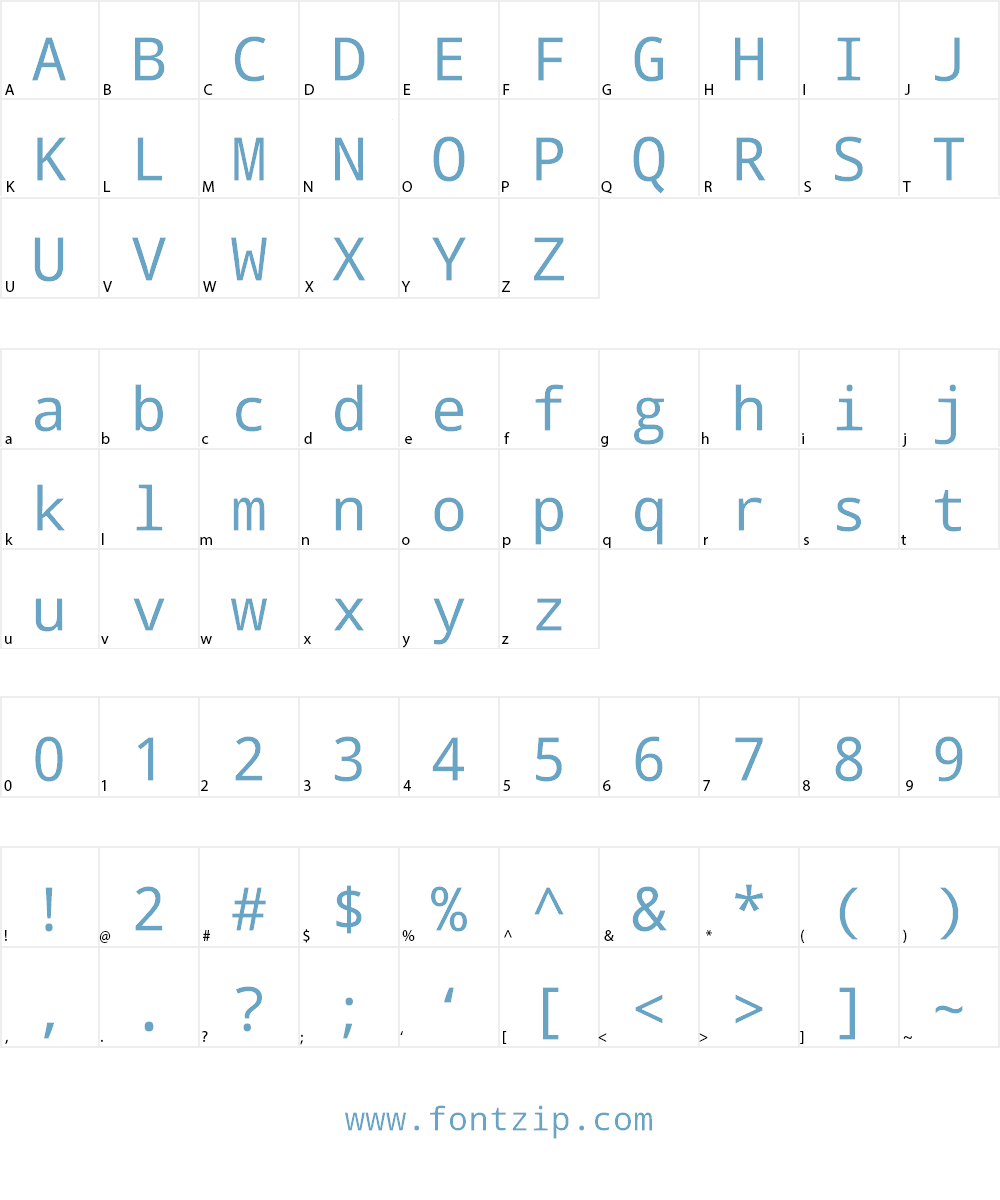
Droid Sans Mono is a fixed width version of Droid Sans. The Droid Sans Mono typefaces were designed by Steve Matteson of Ascender Corp. The Droid Sans Mono fonts feature non-proportional spacing for displaying text in a tabular setting and other uses where a monospaced font is desired. Droid Sans Mono has excellent legibility characteristics in its letterforms.